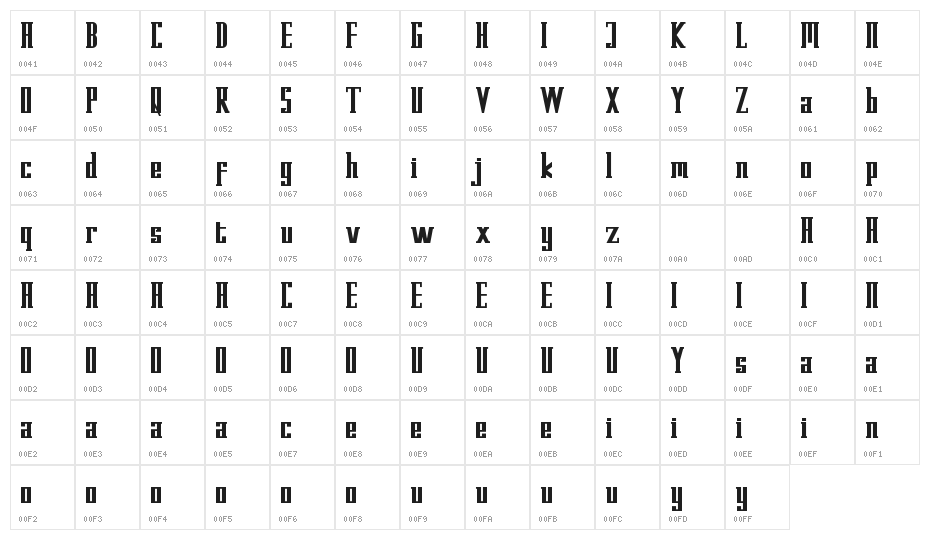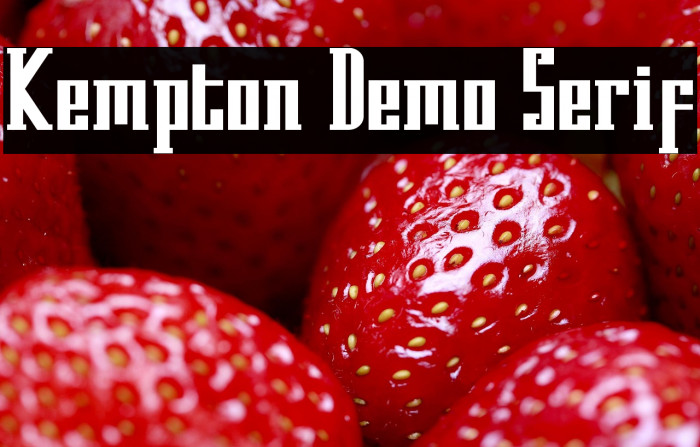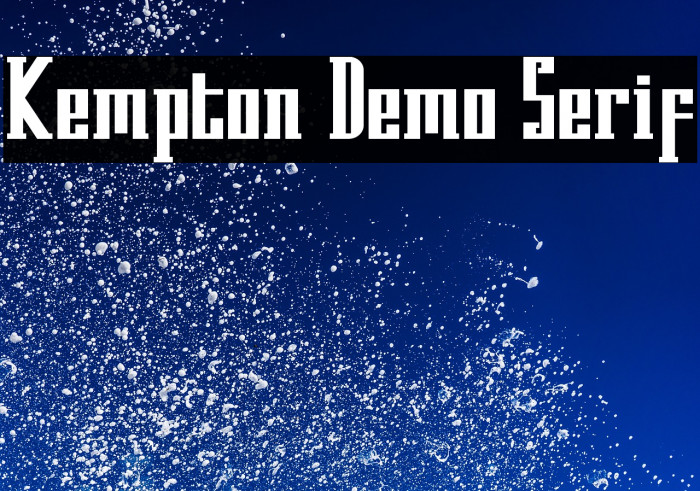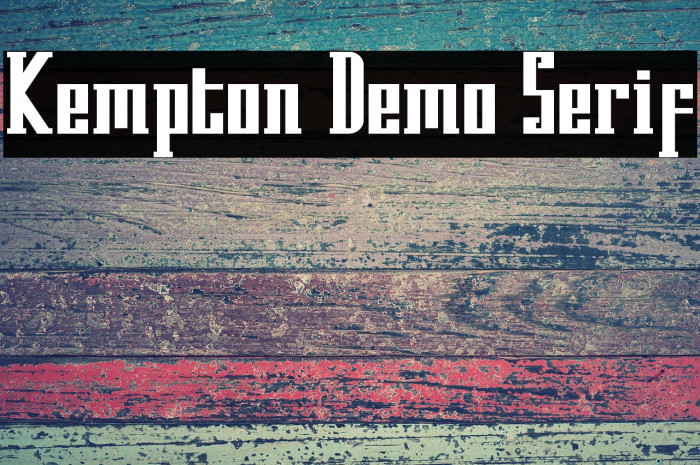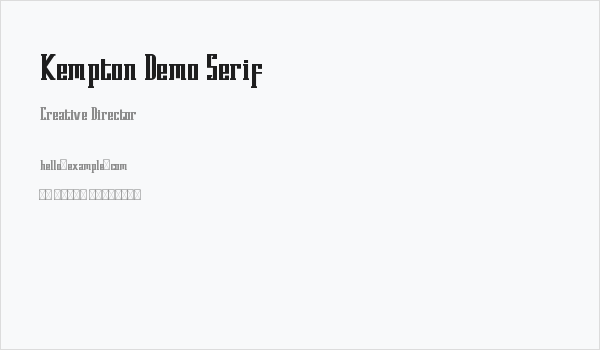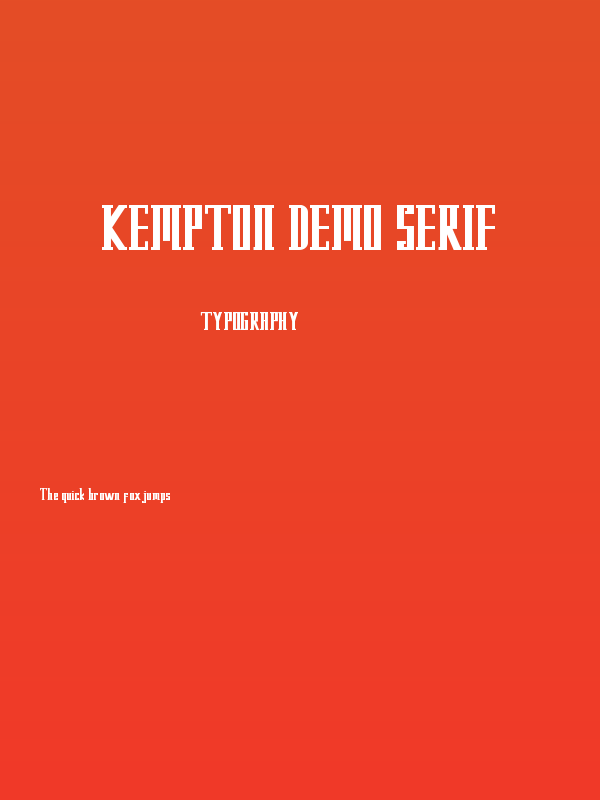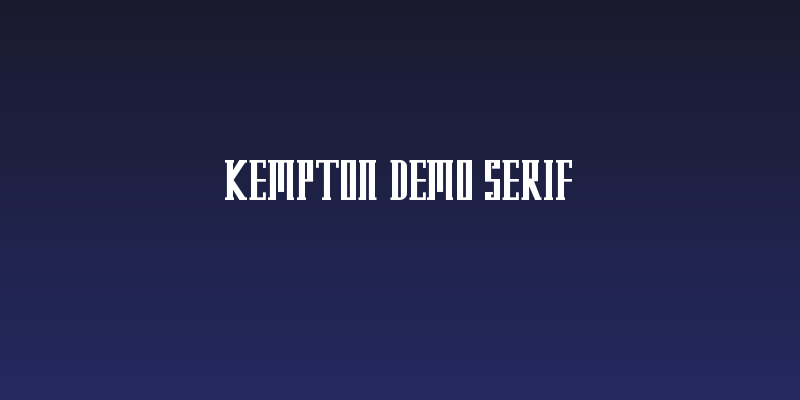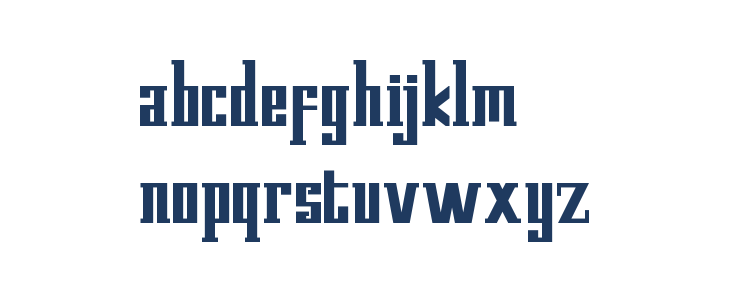
Kempton Demo Serif Font
Kempton Demo Serif Description
This font features a bold and striking serif style with a strong presence. The uppercase letters are tall and imposing, with sharp serifs that give them a commanding appearance. The lowercase letters maintain a consistent style, with a slightly condensed form that complements the uppercase. The numbers are robust and align well with the overall aesthetic, ensuring readability and impact. Special characters are designed with the same attention to detail, making them suitable for various applications. The font's design is reminiscent of vintage typography, yet it maintains a modern edge, making it versatile for both classic and contemporary projects.
| Overall Style | Vintage, Modern |
| Proposed Projects | Ideal for branding, headlines, posters, and any project requiring a bold, impactful typeface. |